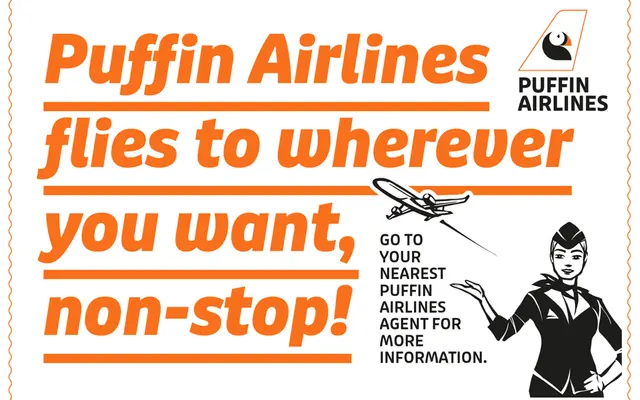
Puffin
Bold Monday · Pieter van Rosmalen, Sabina Chipară, Jacques Le Bailly · 2008
A humanist sans family by Pieter van Rosmalen that spans a workhorse text cut and two expressive display variants, grown from a single bold display weight released in 2008.
The base Puffin is a practical humanist sans with generous spacing, a 15-degree oblique italic and disambiguated forms for capital I, lowercase l and the numeral 1, making it well-suited to UI and on-screen reading. Puffin Display and Puffin Display Soft increase the x-height, tighten spacing and introduce more expressive curved letterforms and rounded terminals for medium to large sizes. Across three subfamilies, the family runs to 42 styles, with extensive Latin language coverage stretching to over 100 languages.
Described explicitly as a humanist sans with generous spacing and oblique italics suited to screen and UI use; the Display variants add curved, expressive letterforms but the base family sits firmly in the humanist sans tradition.